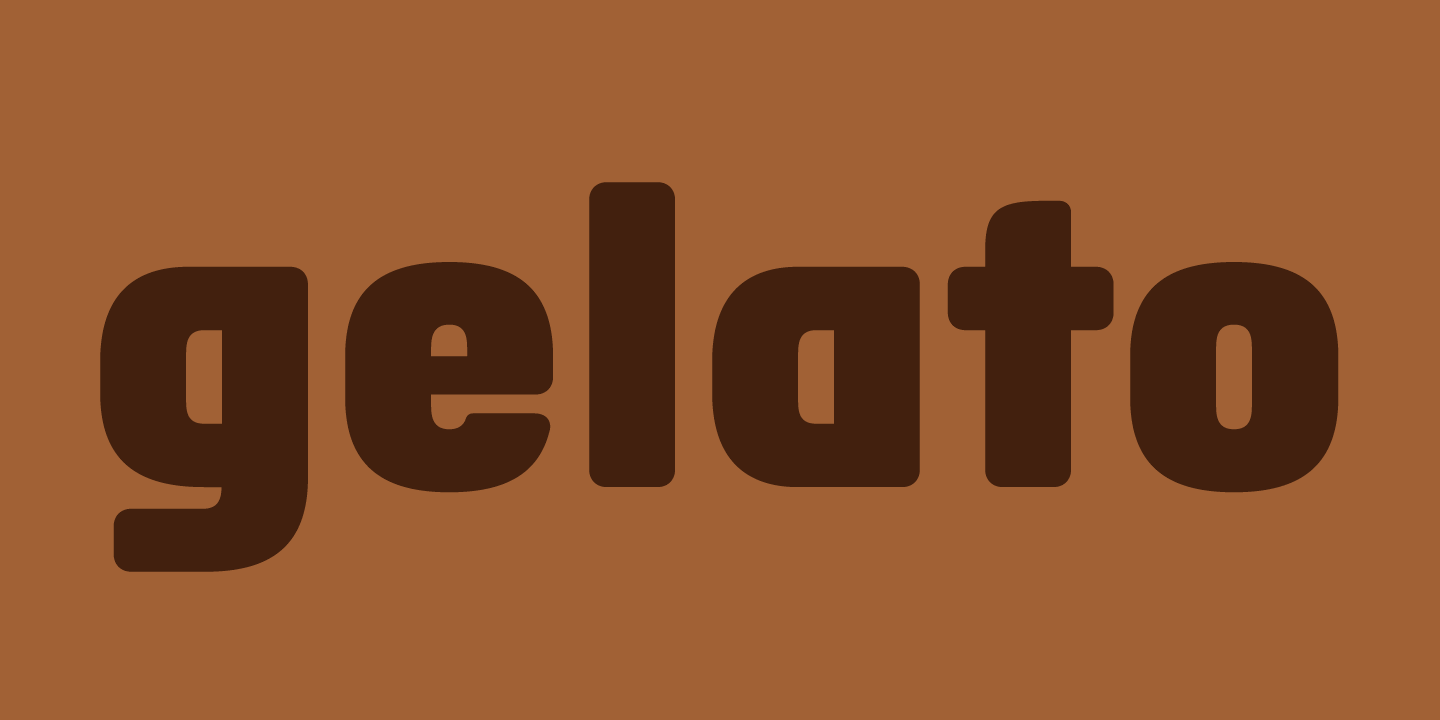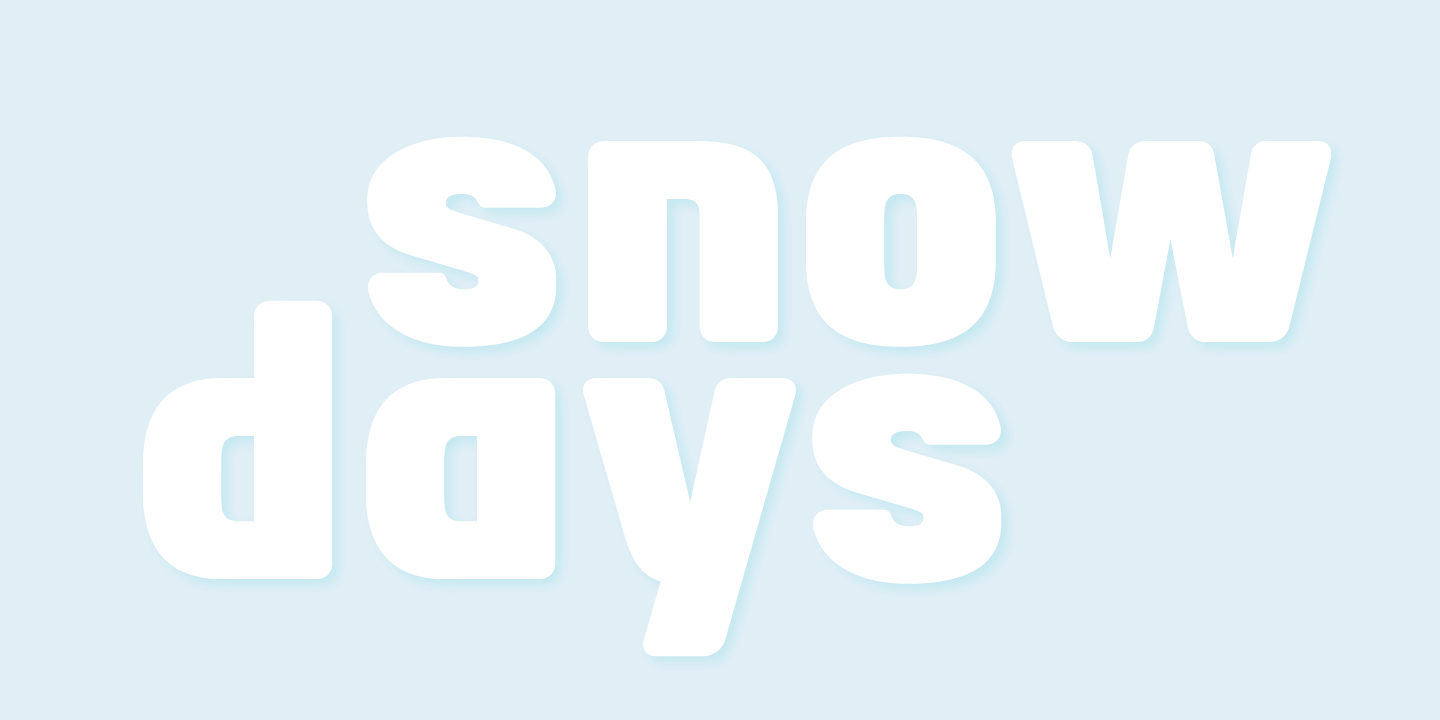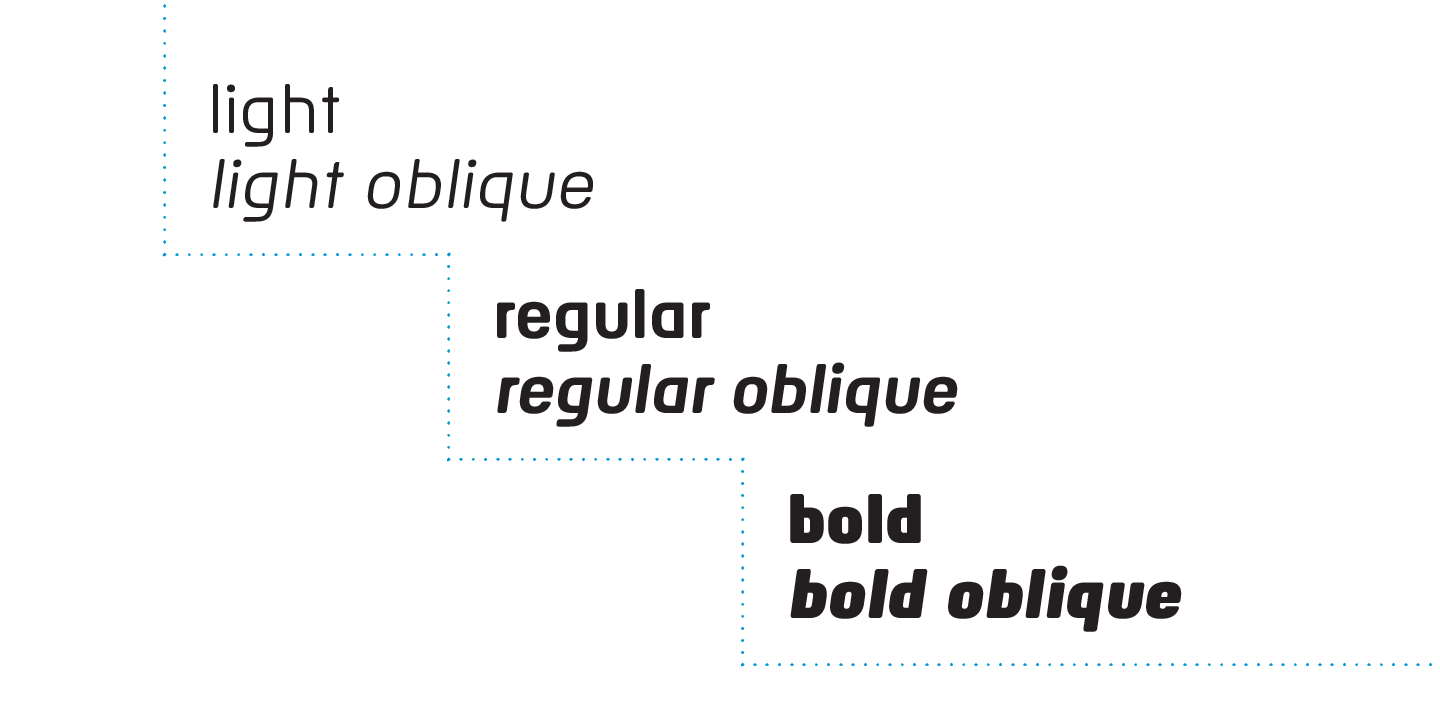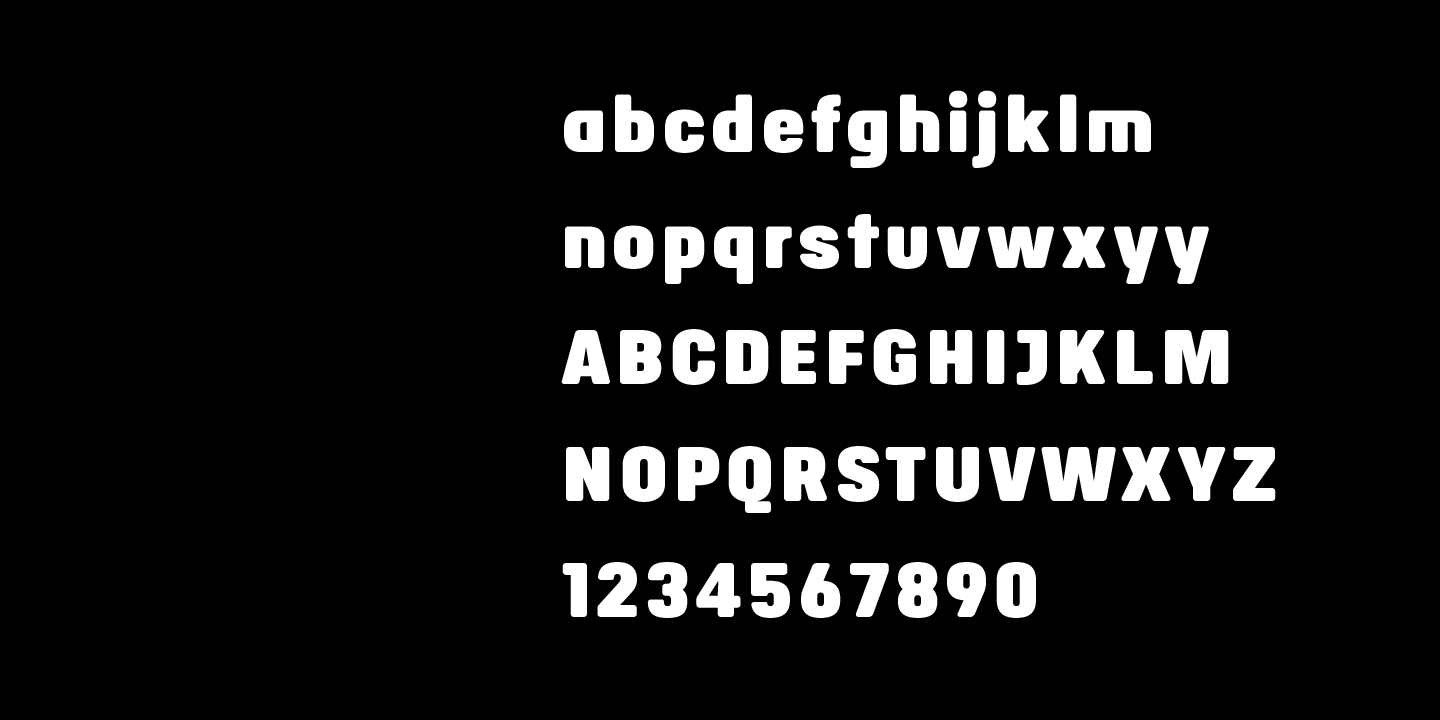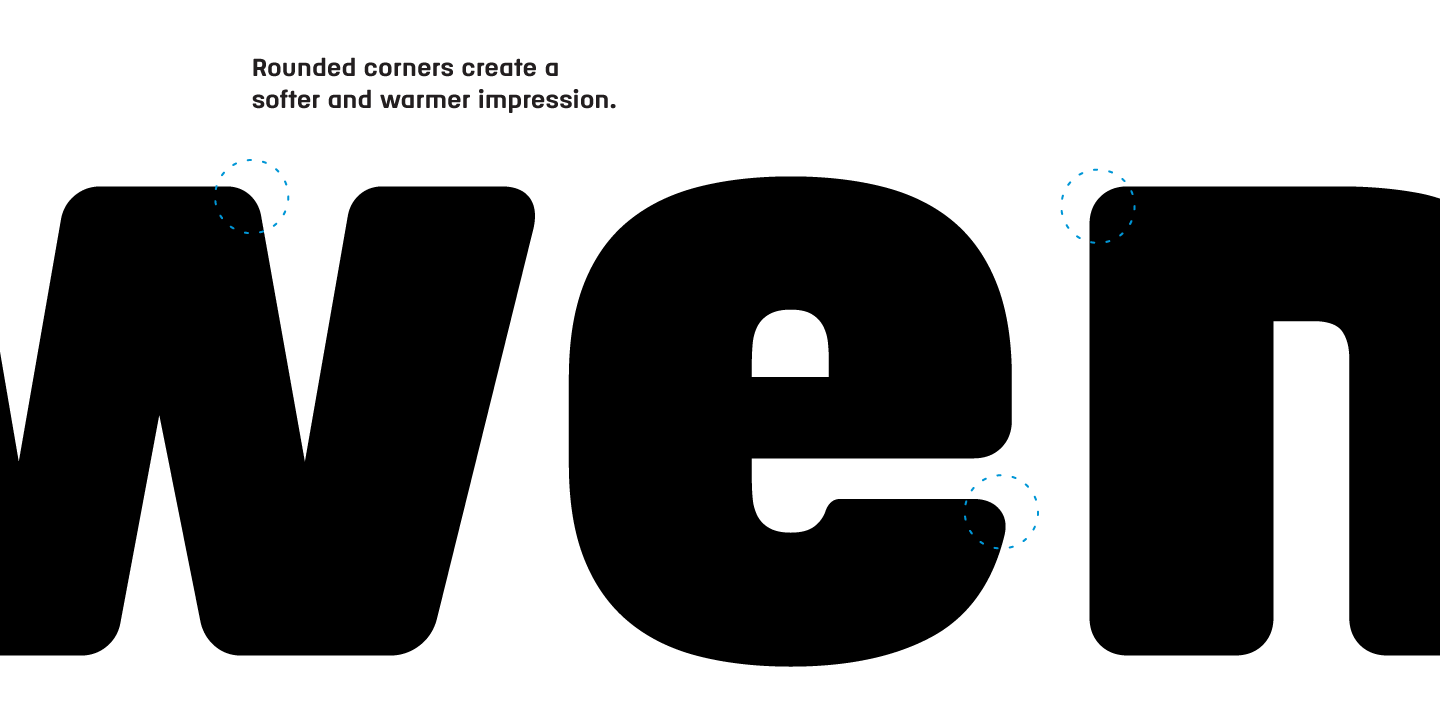
Binario Soft is a geometric sans serif typeface with subtly rounded edges to give a softer and warmer impression. It comes in three weights (light, regular, and bold) with matching obliques. Its simple, compact, and tightly cornered forms lend themselves…